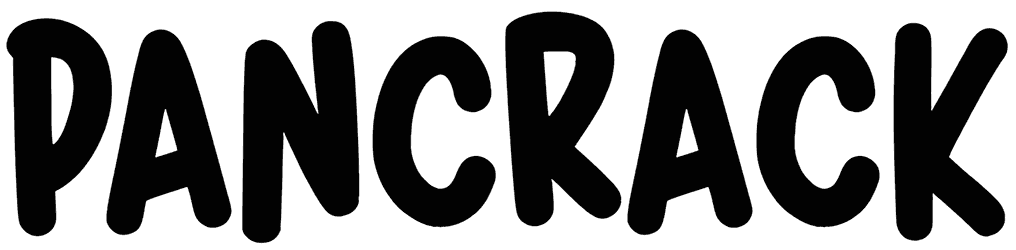
Pancrack Font
The main purpose of Pancrack is to create an easily legible cartoon font that carries a sense of clutters, vivacity, childhood, and jauntiness. It works for a wide range of professional graphic content such as brochures, flyers, applications, packaging, and book covers. Any graphic designer should ignore the lack of lowercase letters.